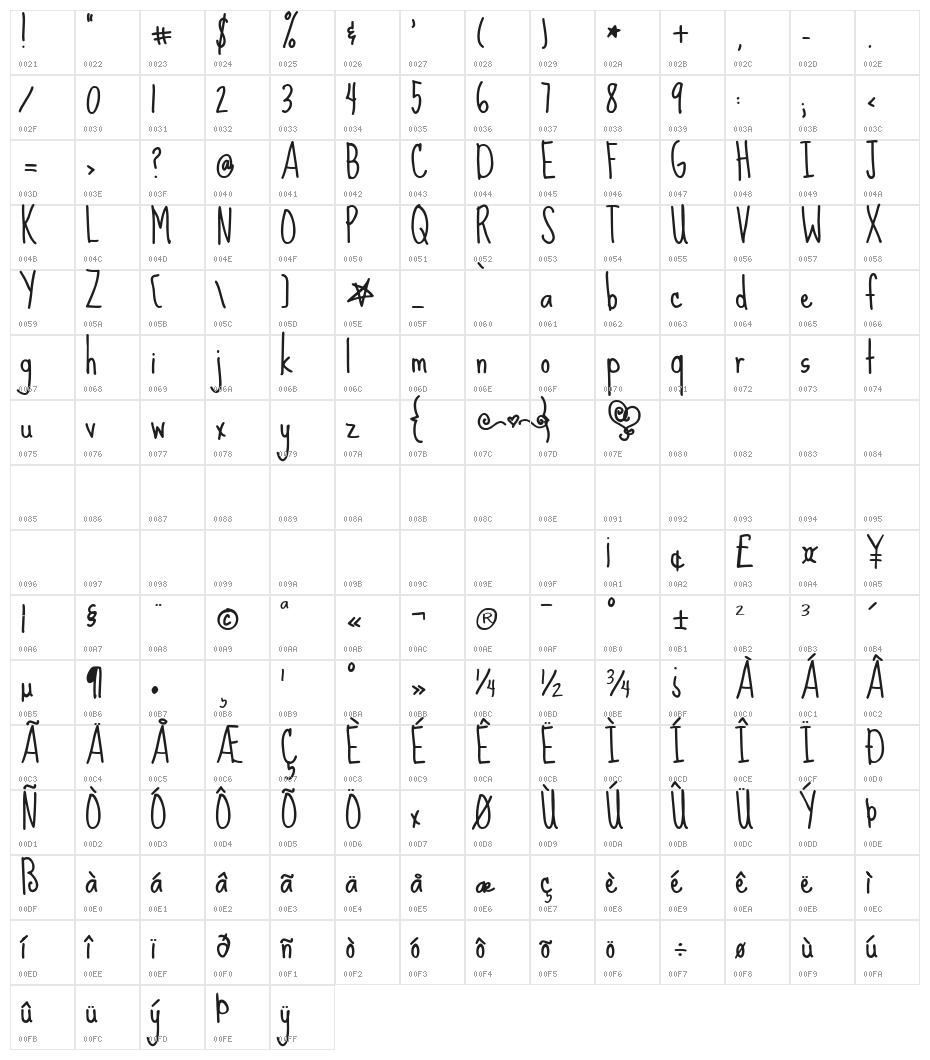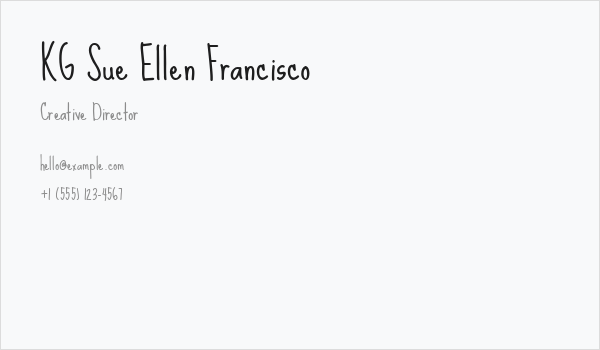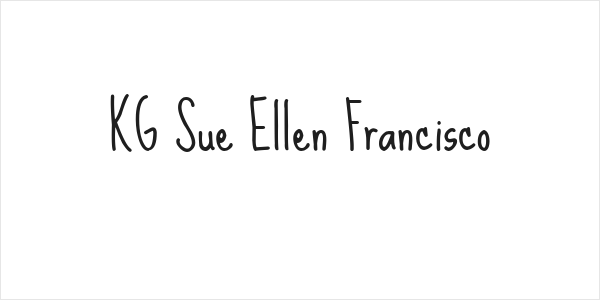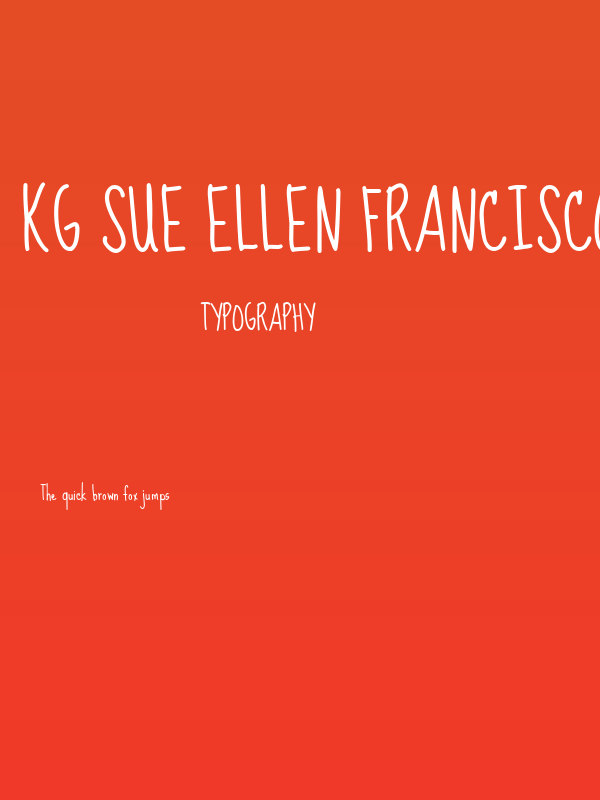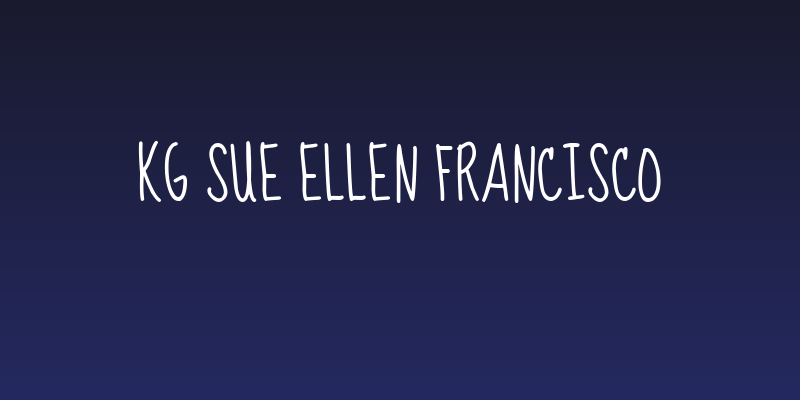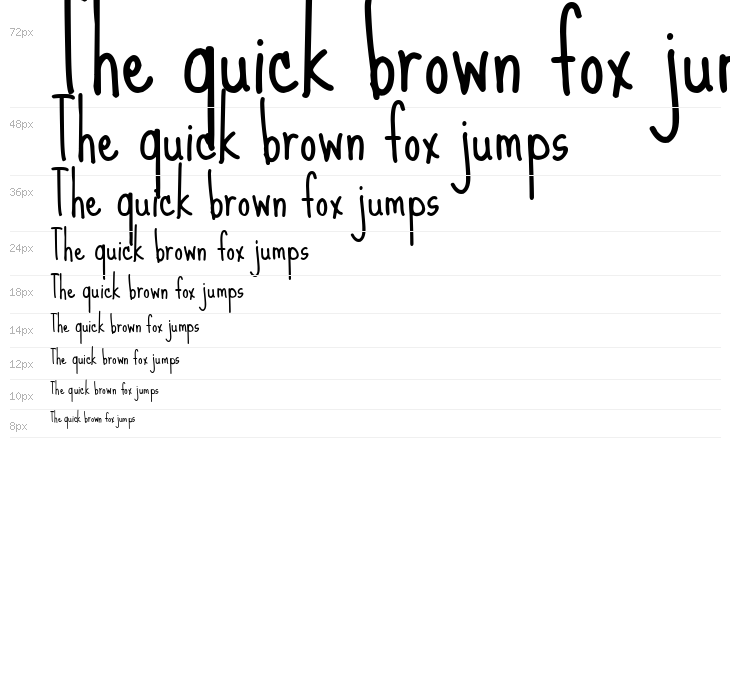
KG Sue Ellen Francisco Font
KG Sue Ellen Francisco Description
This font exudes a playful and casual handwritten style, characterized by its irregular strokes and whimsical appearance. The letters are slightly elongated, giving them a unique and quirky look. The uppercase and lowercase letters maintain a consistent flow, while the numbers and special characters complement the overall aesthetic. The font's informal nature makes it ideal for projects that require a personal touch or a friendly vibe. Its distinctiveness lies in the uneven lines and the organic feel of each character, making it stand out in creative and artistic designs.
| Proposed Projects | Ideal for greeting cards, children's books, personal blogs, and creative posters. |